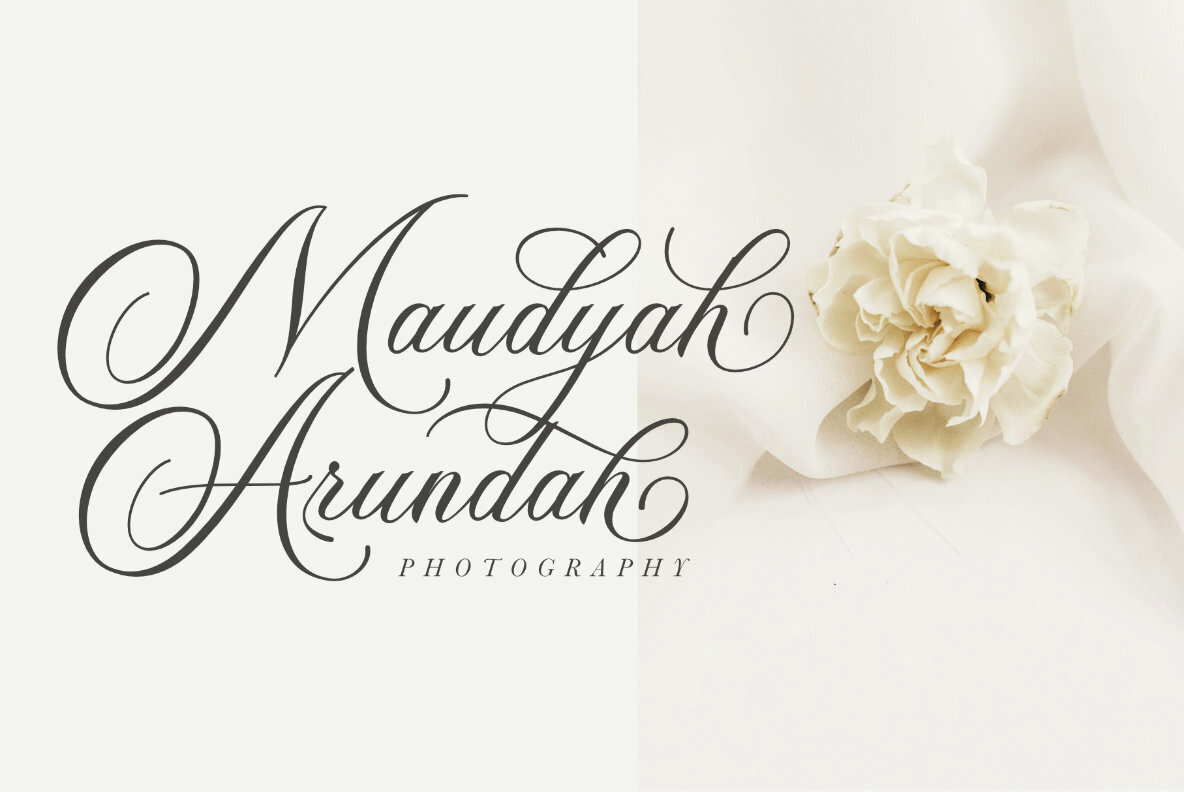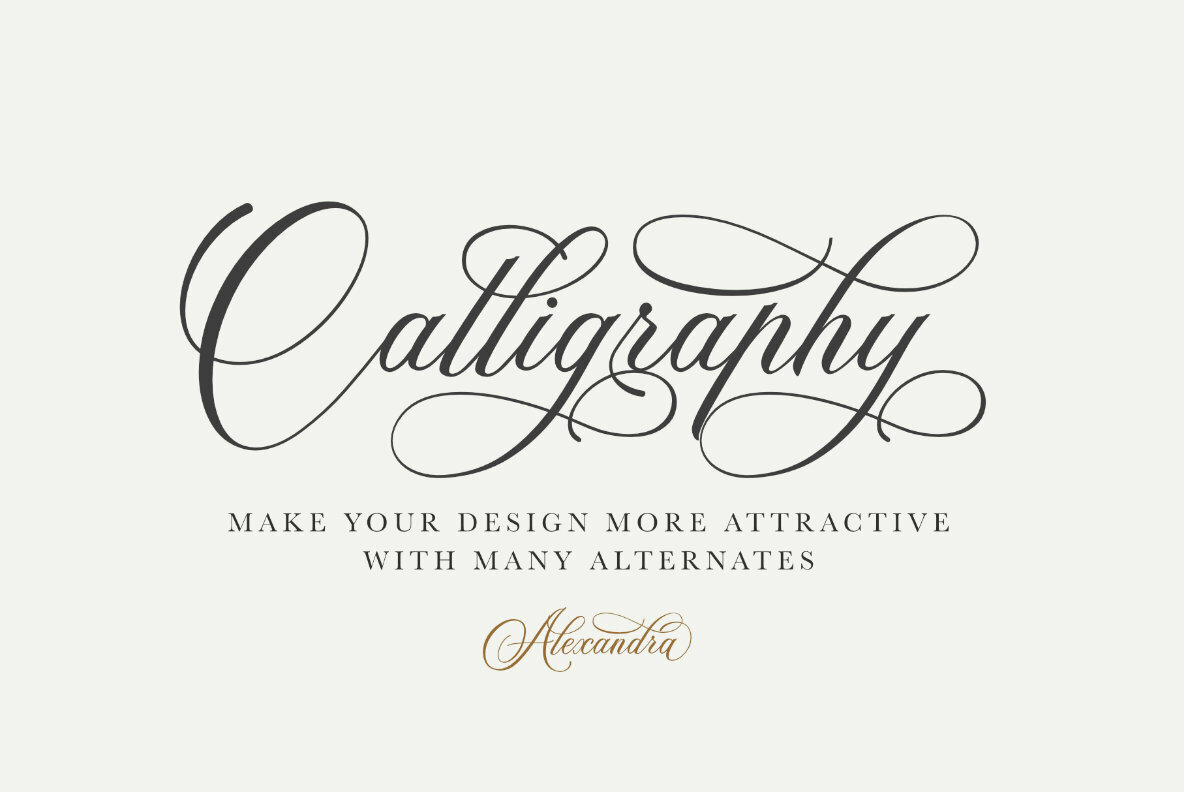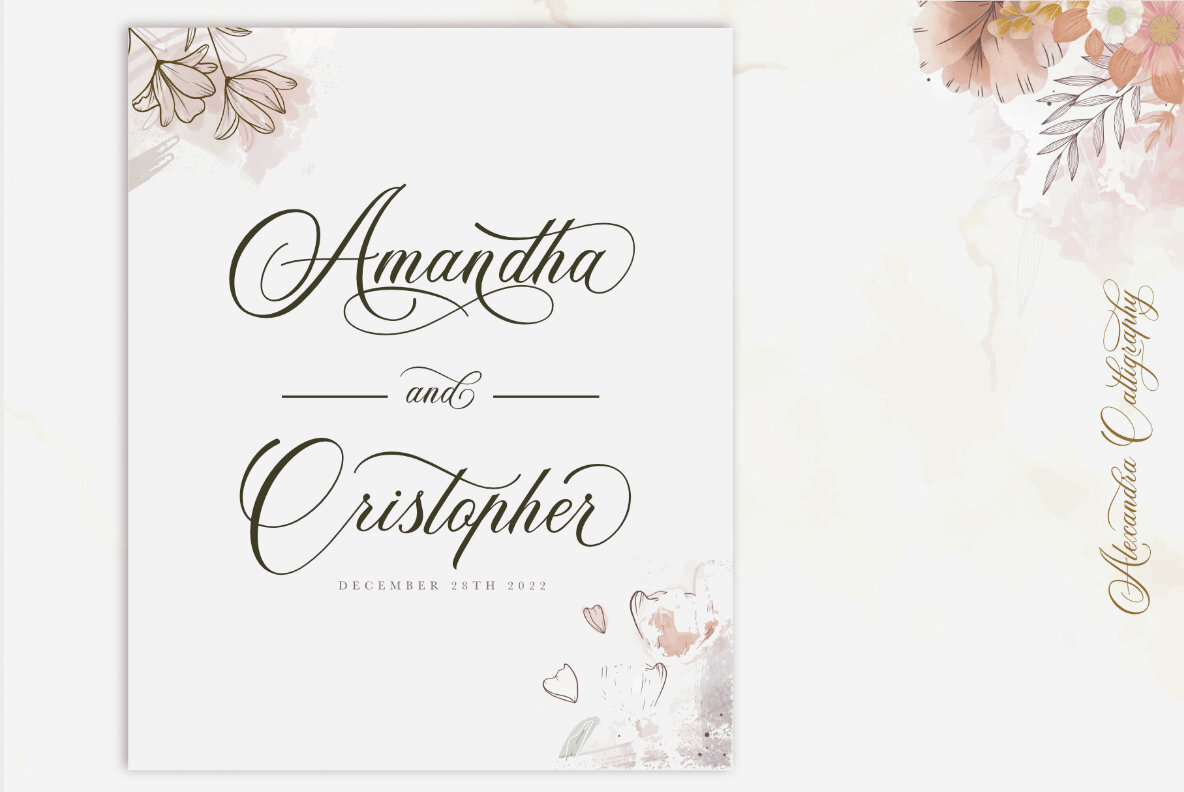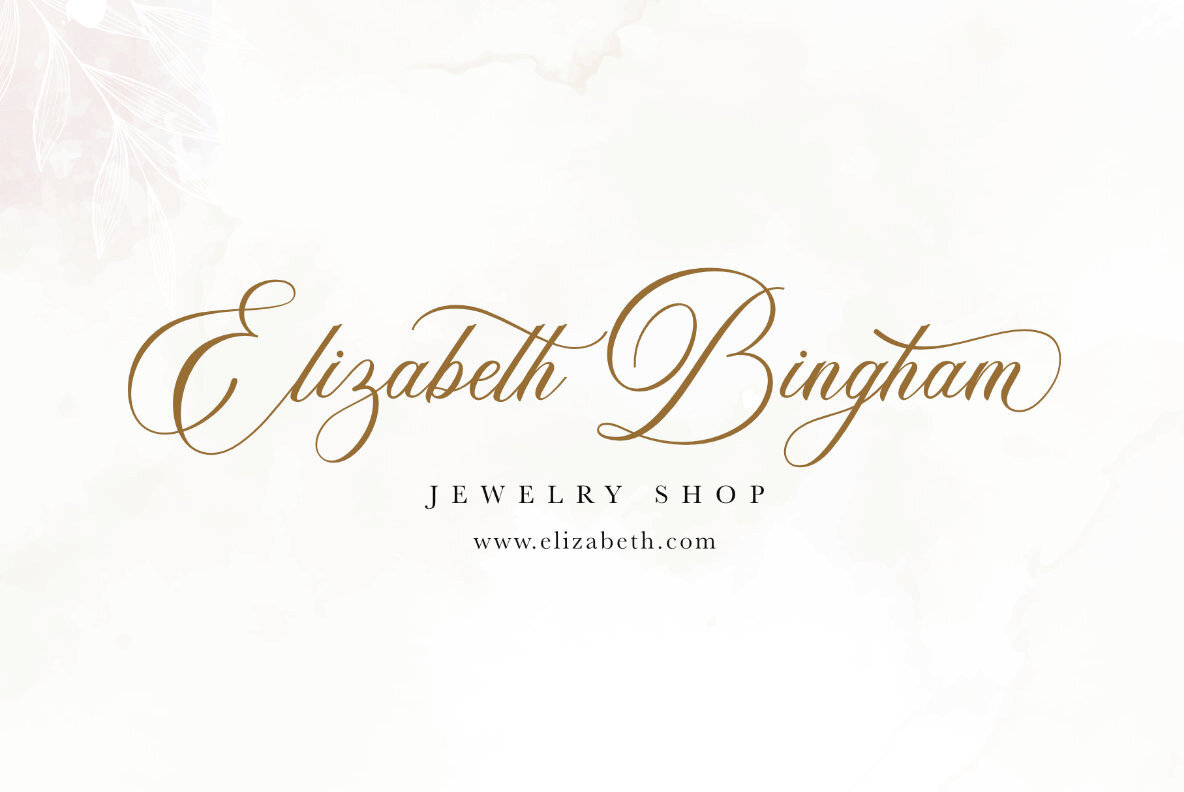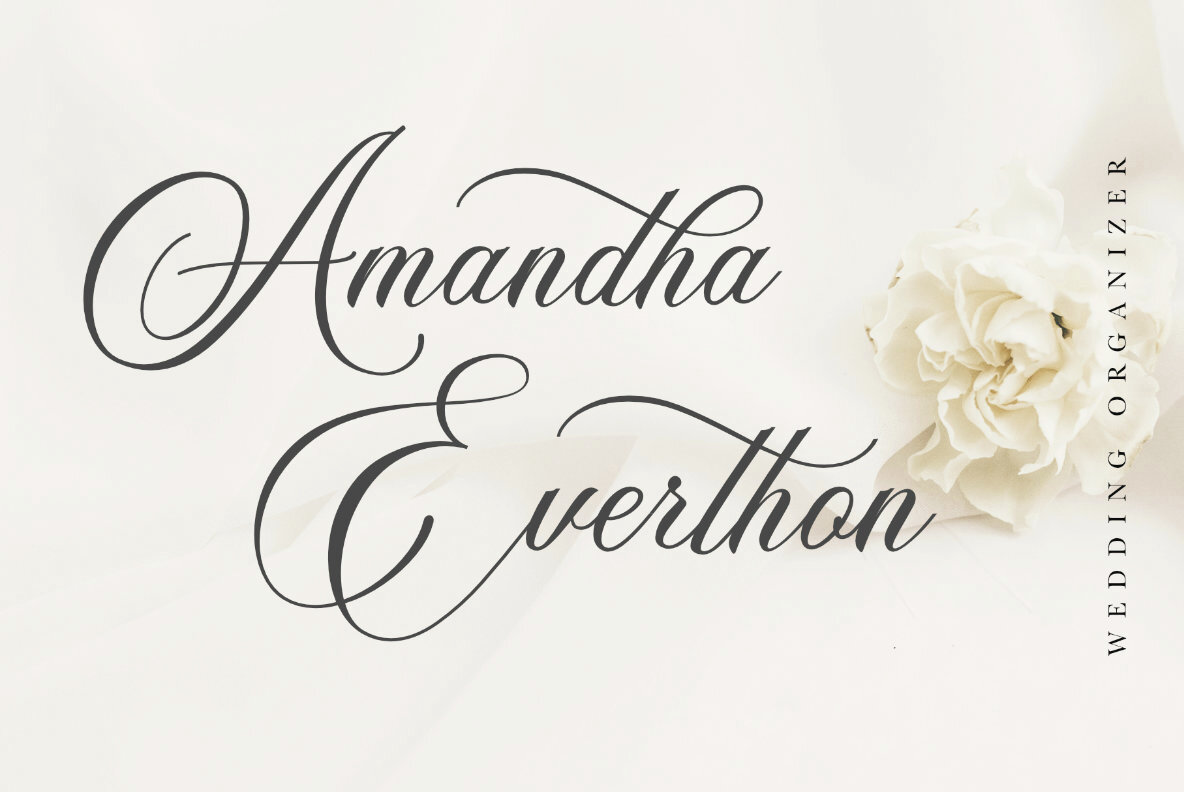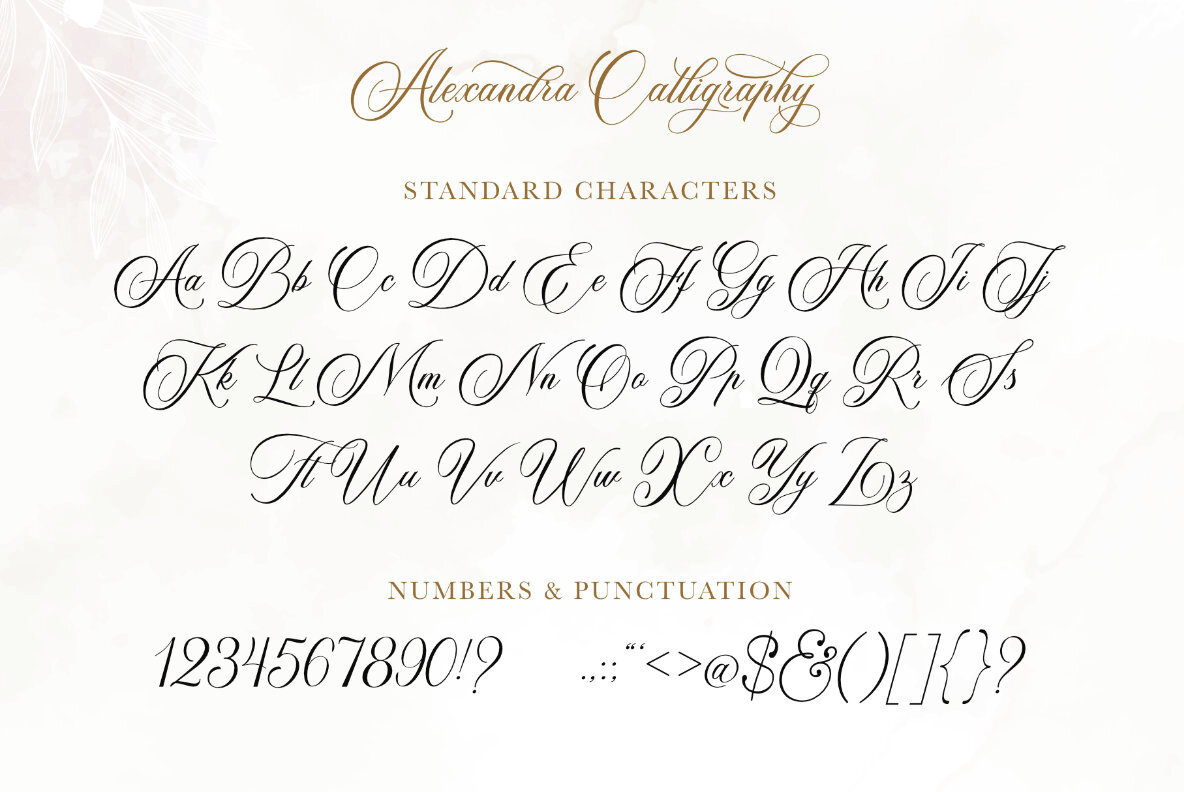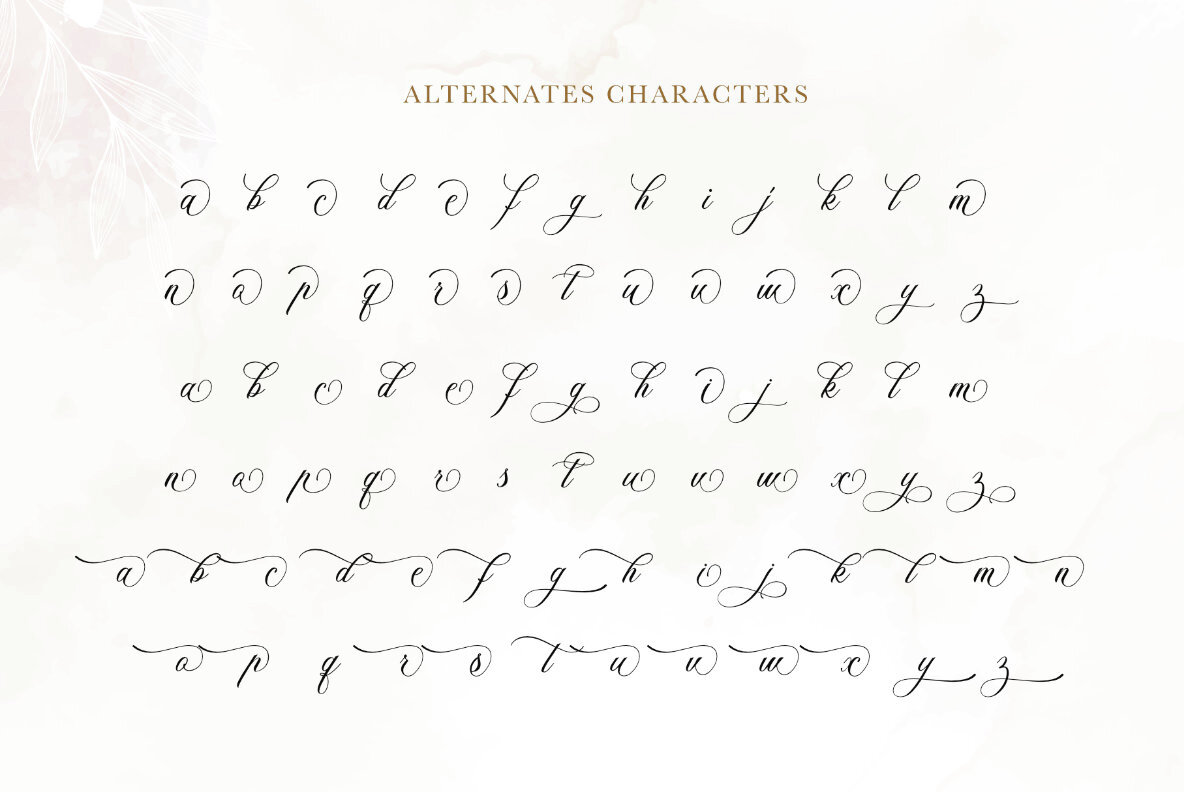
Alexandra Calligraphy Font
Alexandra Calligraphy
Alexandra Calligraphy is a unique calligraphy font designed to elevate your projects with beauty and charm. This font features expertly crafted strokes that impart a luxurious and sophisticated look. Alexandra Calligraphy offers numerous lowercase alternate letters, providing you with endless possibilities to enhance your designs. This versatile font is perfect for a variety of projects, including: If you have any questions, please ....Alexandra Calligraphy: Enhance Your Designs with Elegant Flair
Distinct Features